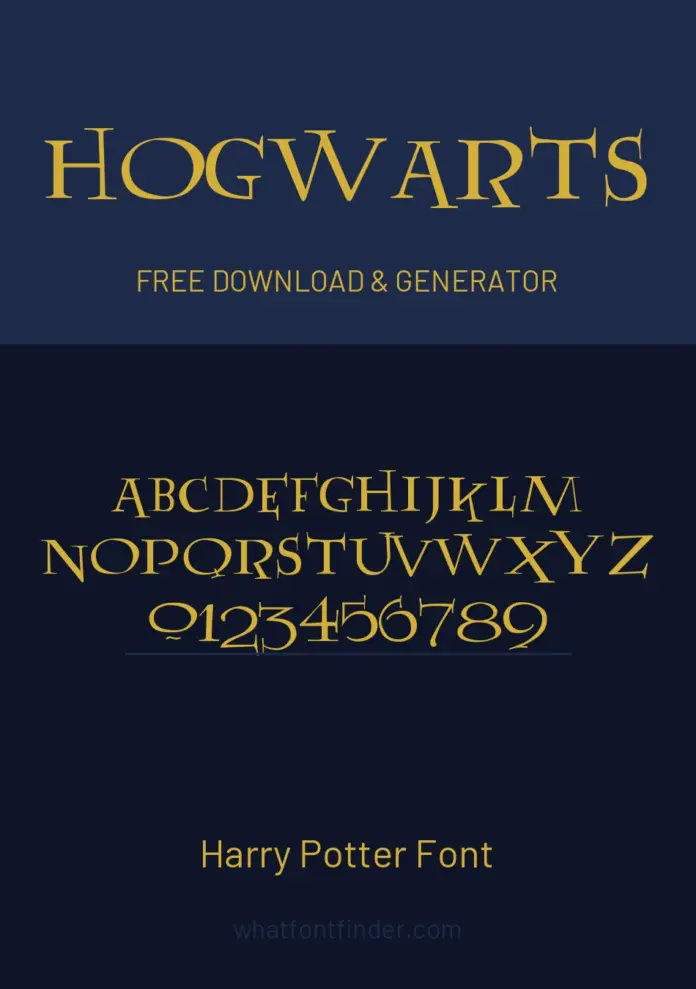
What font is the Harry Potter logo?
Strictly, none. The lettering on the covers and the film titles was drawn by hand rather than typed. The US book jackets were lettered by Mary GrandPré, and the lightning-bolt P everyone recognises is a piece of custom artwork, not a character in a font. It was never released as a typeface, so there is no official file to install — and any site telling you otherwise is describing a fan recreation.
That matters more than it sounds, because a hand-drawn wordmark only ever contained the letters it needed. The original artwork has no numerals, no punctuation and no lowercase to borrow from.
Lumos: the closest thing to the real lettering
Lumos was made in 2000 by Sarah McFalls, who drew it after failing to find the display face used on the US editions. It is the font most people mean when they ask for “the Harry Potter font”, and it fills in what the original artwork never had: a complete alphabet, numerals and punctuation.
Two things worth knowing when you use it. Set in capitals it stays closest to the book covers; the lowercase letters are quirkier and were drawn with deliberate variations. There are also six hidden dingbats tucked into the character set — the author mentions a very small golden snitch among them.
Fonts for the rest of the page
- EB Garamond — the US editions set their body text in a Garamond, so this is the honest choice for longer passages
- Cinzel Decorative — Roman capitals with flourishes, useful for chapter openers and invitations
- IM Fell English SC — digitised from seventeenth-century punches, so it carries genuine ink spread rather than a filter imitating age
Is this the exact font used for Harry Potter?
Not exactly. The original lettering was custom drawn or is not publicly licensed, so the fonts here are close recreations. Lumos is the nearest match we have found.